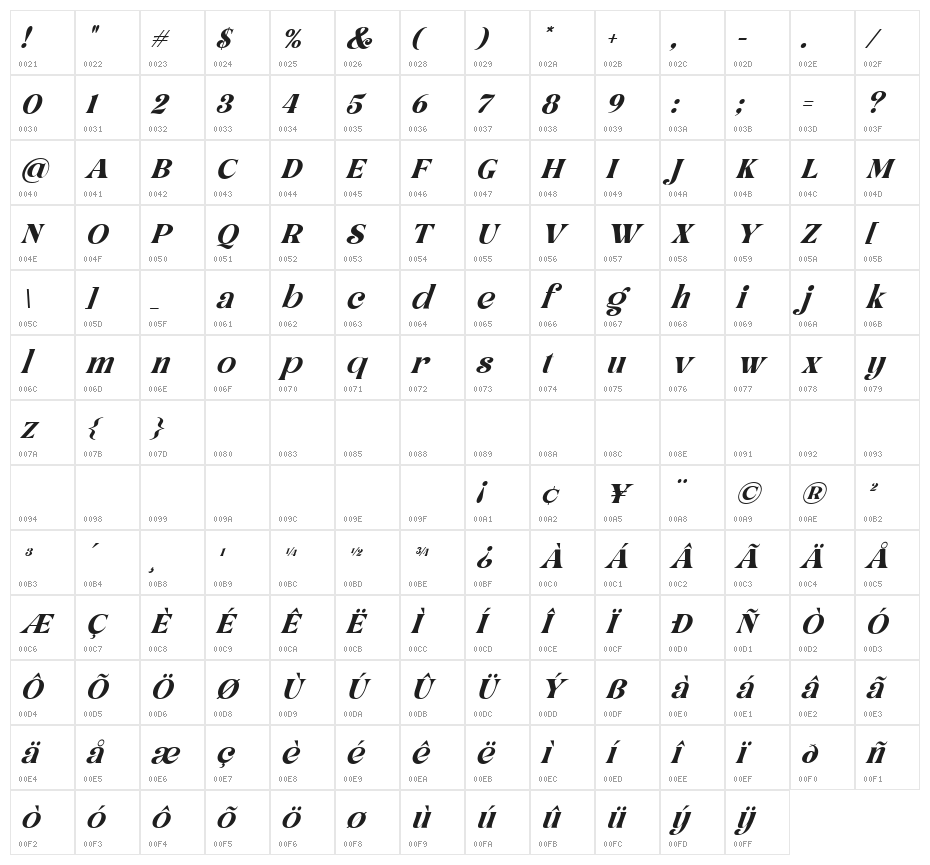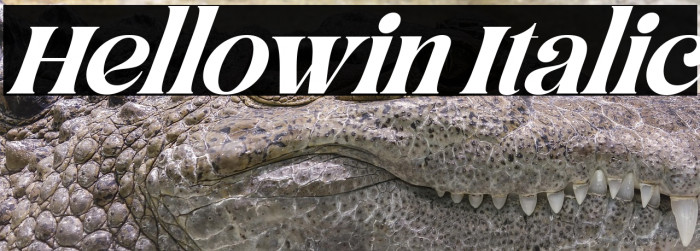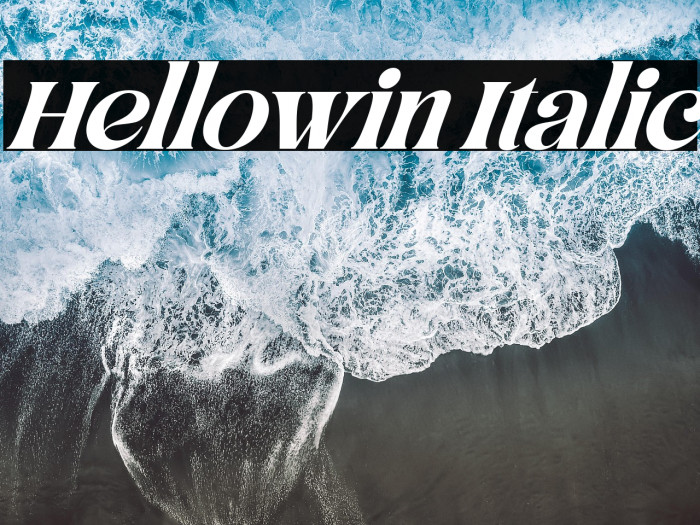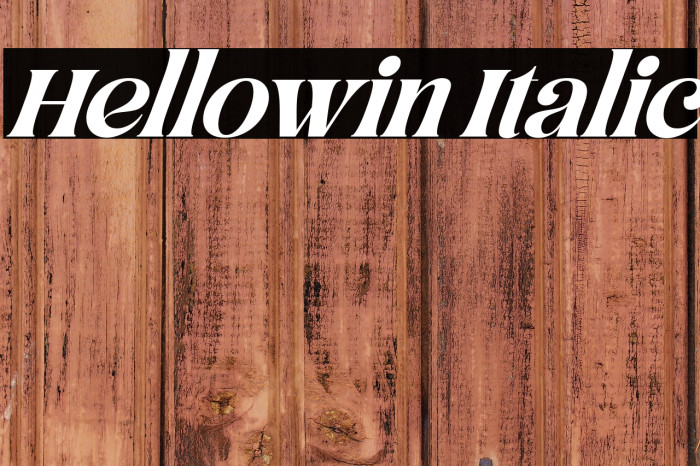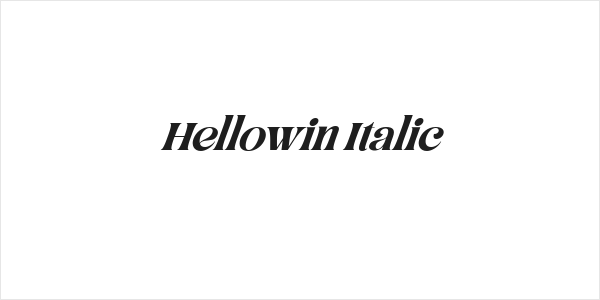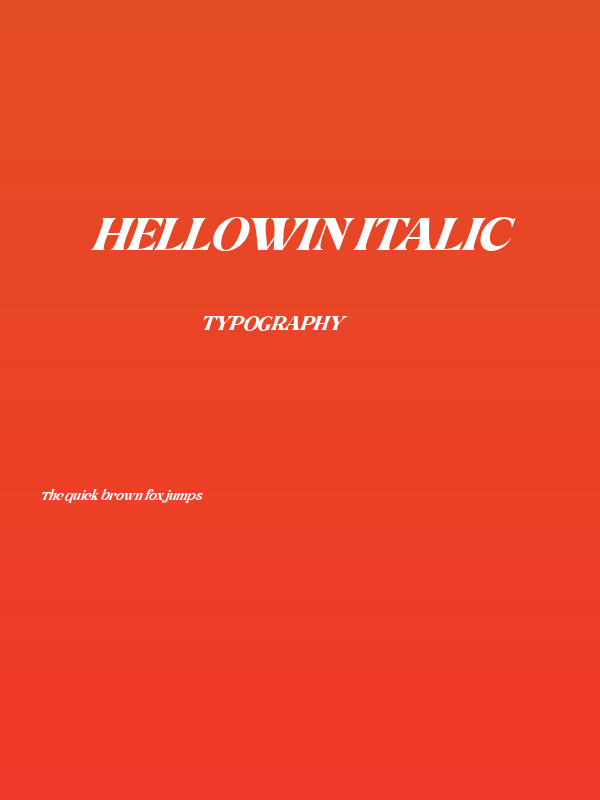
Hellowin Italic Font
Hellowin Italic Description
This font features a dynamic and elegant italic style with a strong presence. The characters are slanted, creating a sense of movement and sophistication. The strokes are bold and well-defined, with a high contrast between thick and thin lines, adding to its dramatic flair. The uppercase letters are particularly striking, with sharp serifs and a slightly condensed form, while the lowercase letters maintain a consistent flow. The numerals are equally bold, ensuring readability. The special characters are designed to complement the overall aesthetic, making this font suitable for impactful and stylish designs.
| Proposed Projects | Ideal for branding, fashion magazines, luxury product packaging, and elegant invitations. |